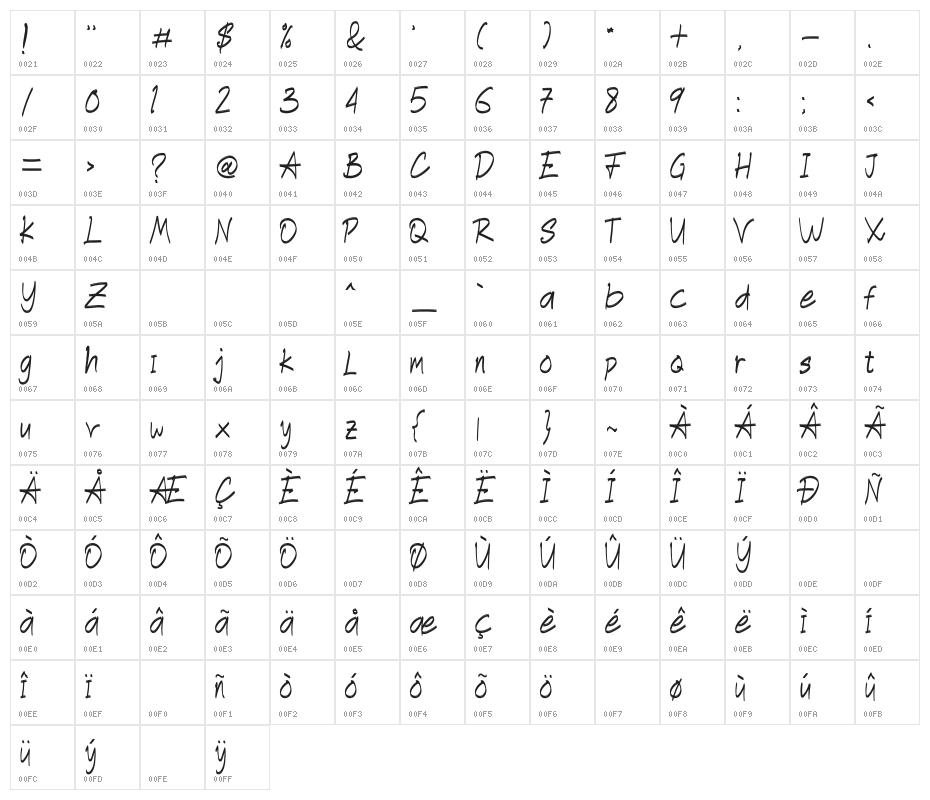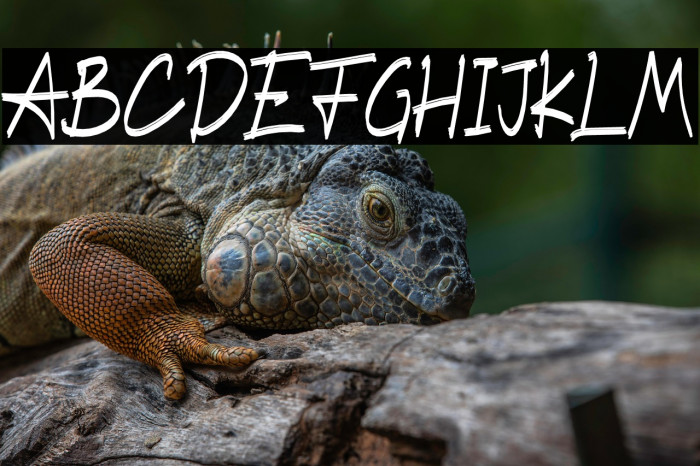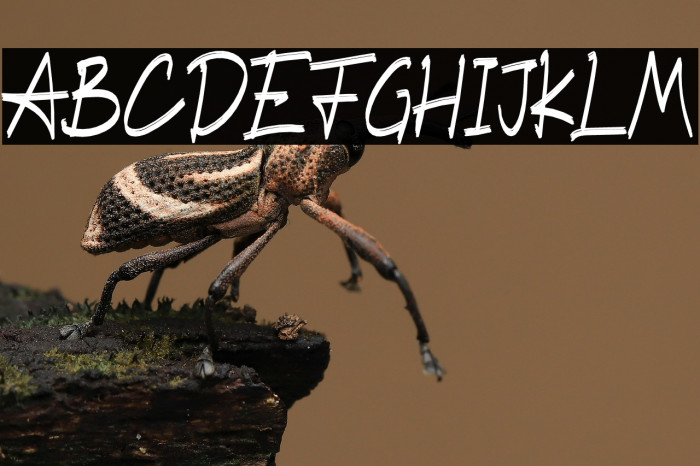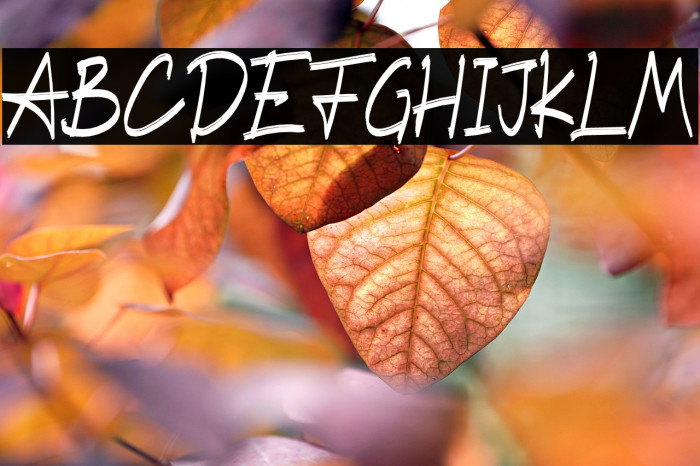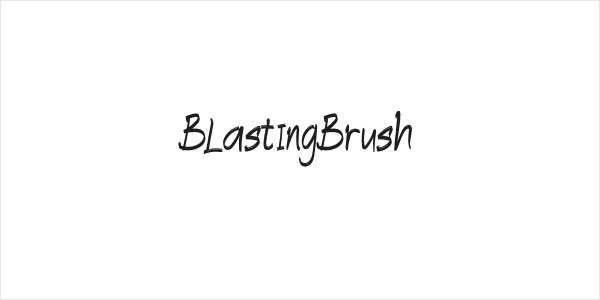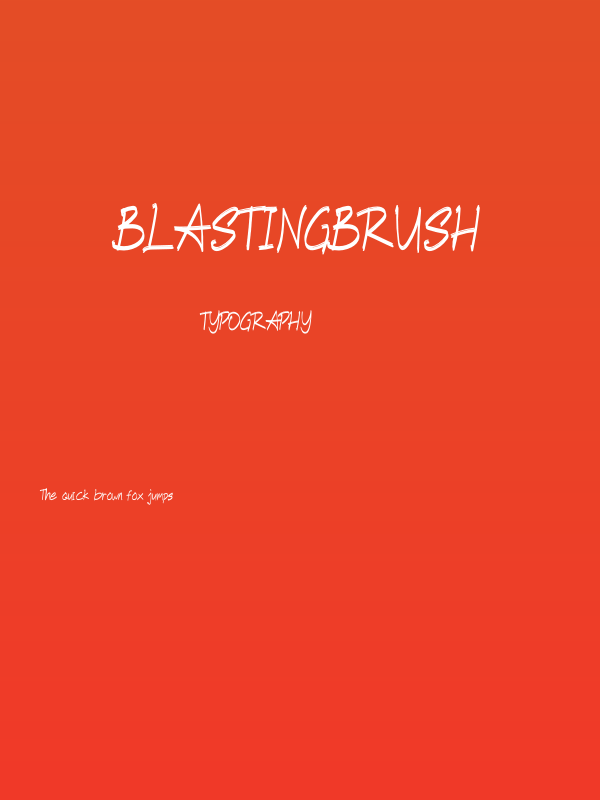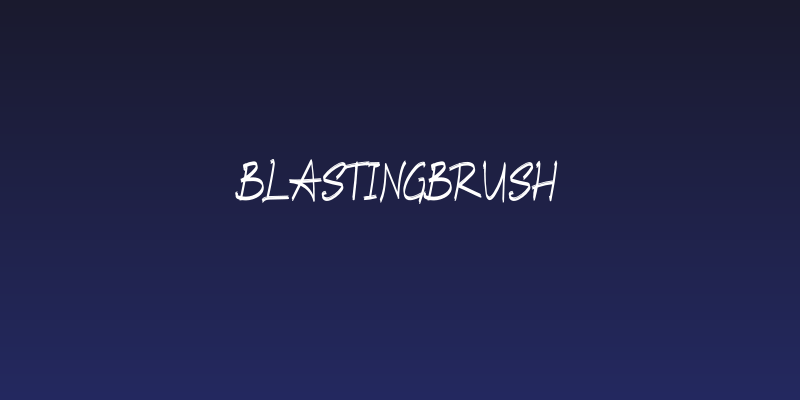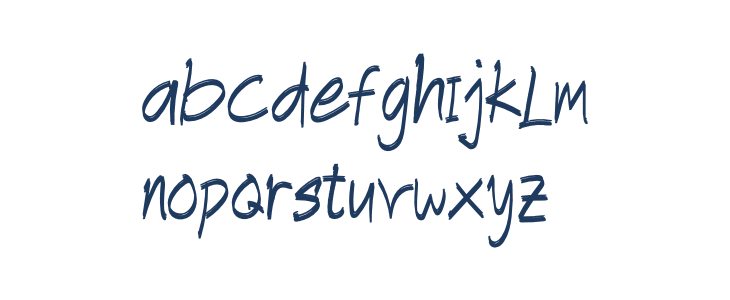
BlastingBrush Font
BlastingBrush Description
This font exhibits a dynamic and energetic brush style, characterized by its bold and expressive strokes. The letters have a hand-drawn appearance, with varying thickness that adds a sense of movement and spontaneity. The uppercase and lowercase letters maintain a consistent style, with slightly irregular edges that enhance its casual and artistic feel. Numbers and special characters follow the same brush-like aesthetic, making the font versatile for creative projects. Its informal and lively nature makes it suitable for designs that require a personal touch or a sense of creativity.